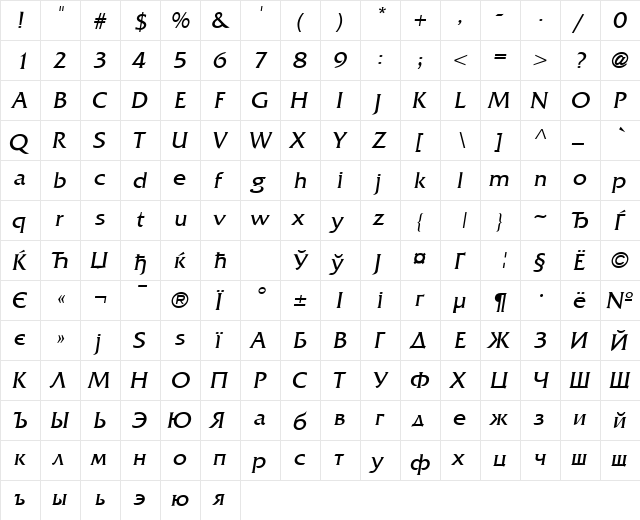
AGFriquer Oblique
Design Context for AGFriquer Typeface
AGFriquer takes a measured approach to typography — its balanced proportions and neutral character make it a reliable workhorse for both digital and print work. The slanted form adds forward momentum and visual energy.
Pro Tip: Try AGFriquer for annotation and caption copy alongside an upright companion — the contrast in angle creates a dynamic but ordered typographic system.